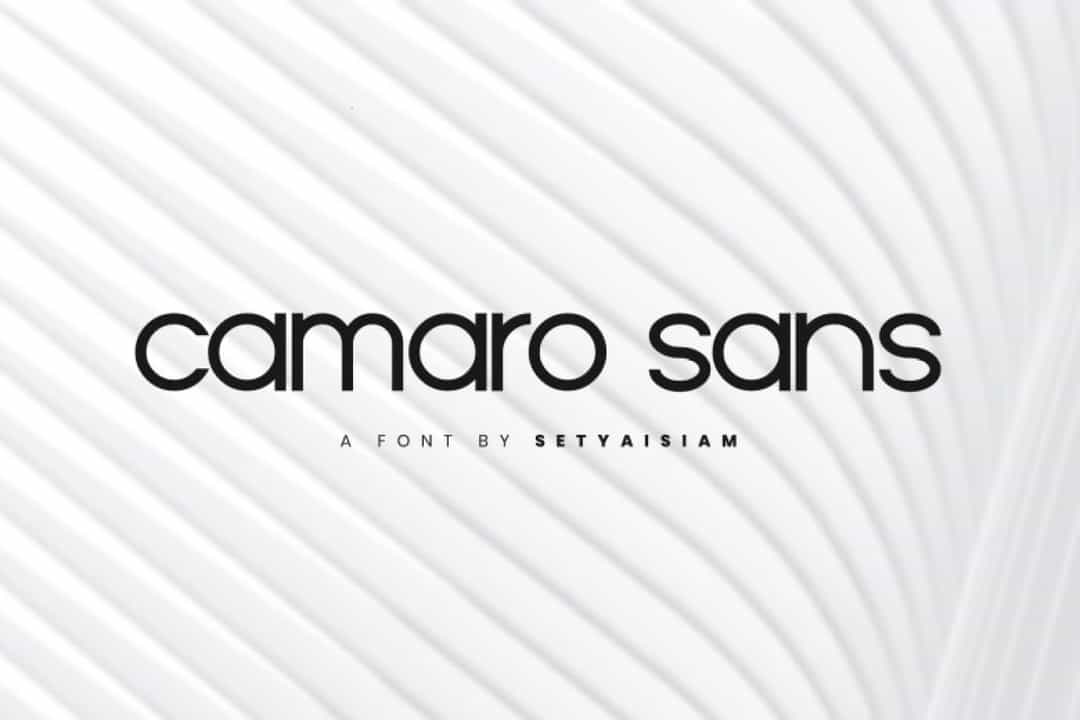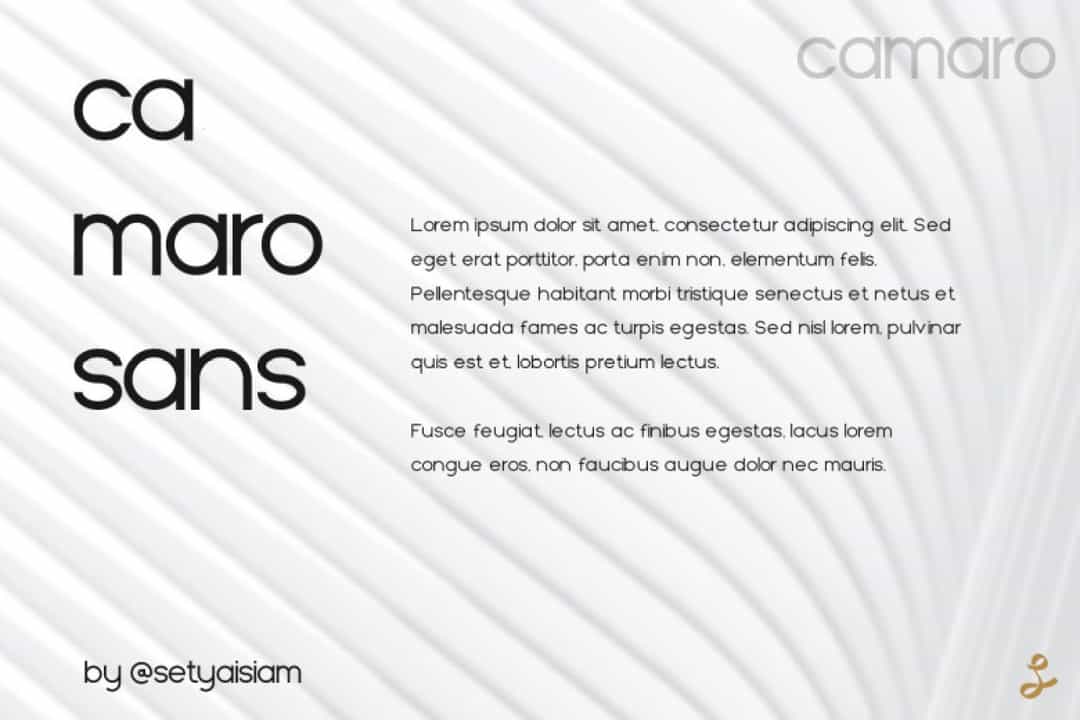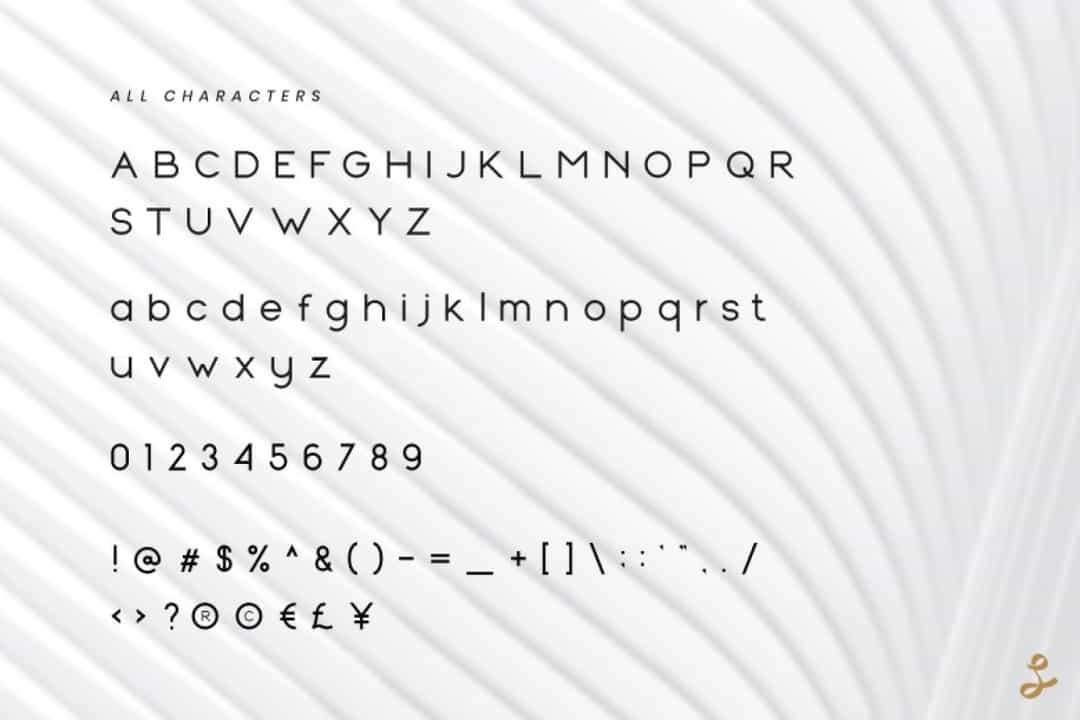
I’ll start with Camaro, a chic and attractive sans typeface giving both contemporary and classic feel at a glance and let you create the visually, a trip from the slimmest body sans to the huge, ad-hoc display sans serif. It is a font introduced by setyaisiam typeface designer. Camaron is indeed lovely, this can be considered an elegant name as well as charming. It is rather timeless, but this piece has a friendly feel to it.